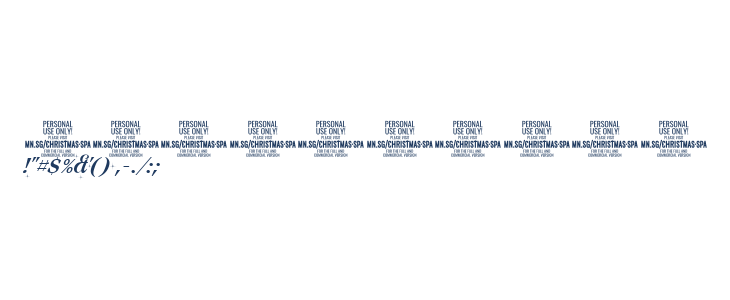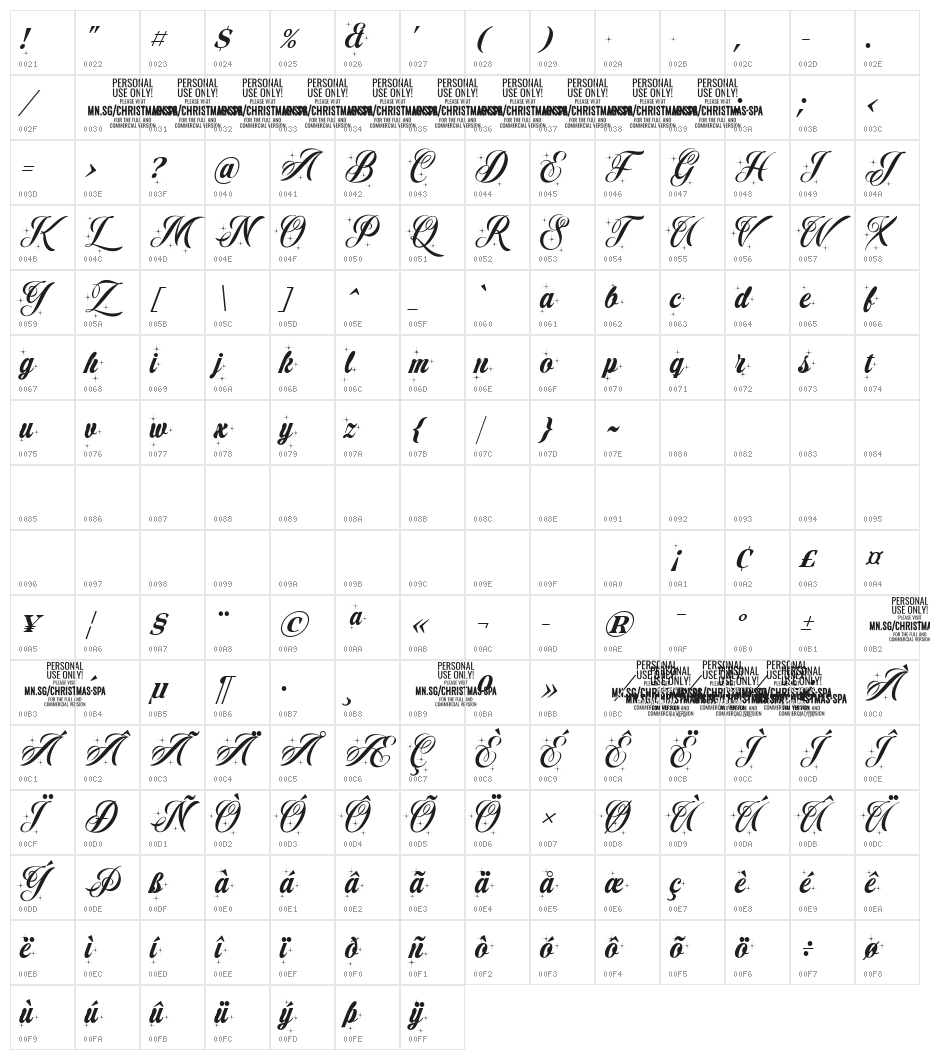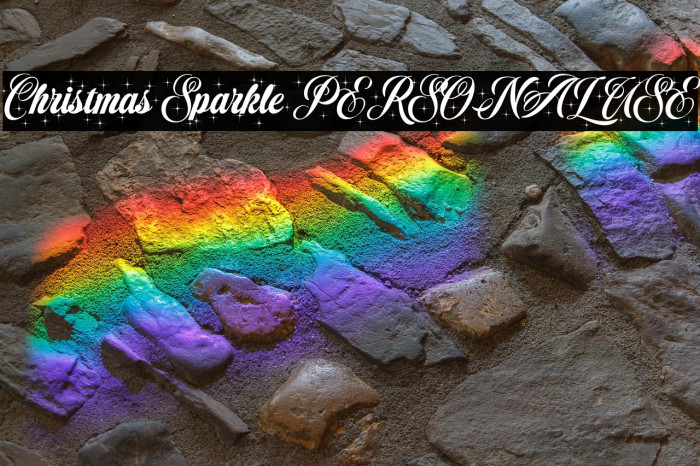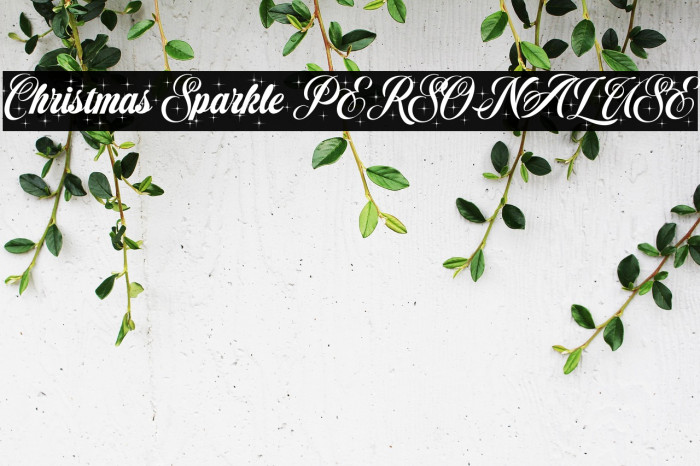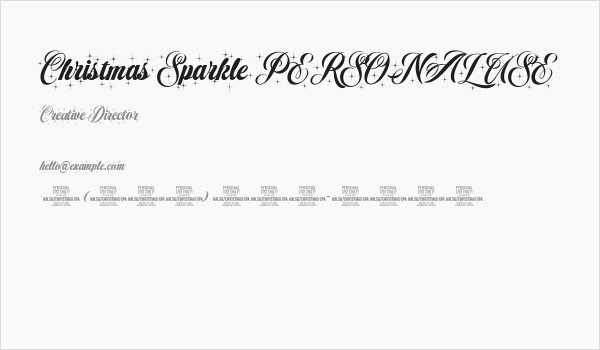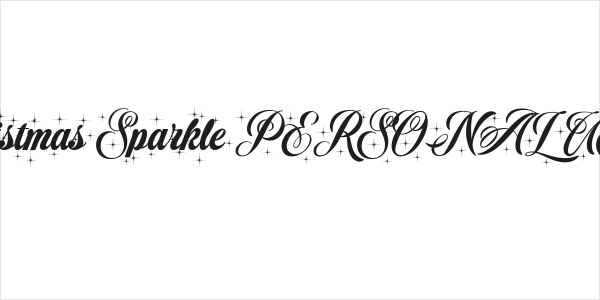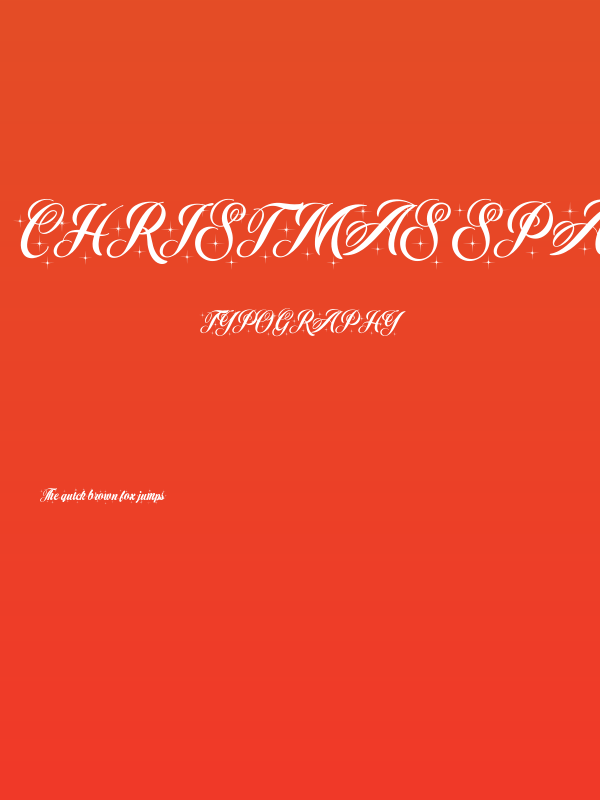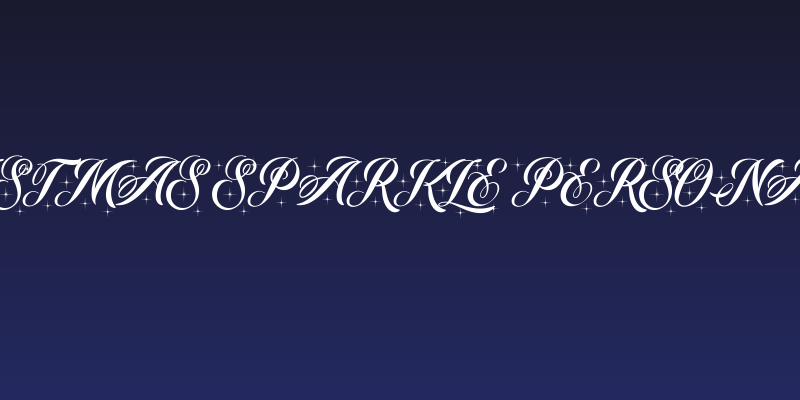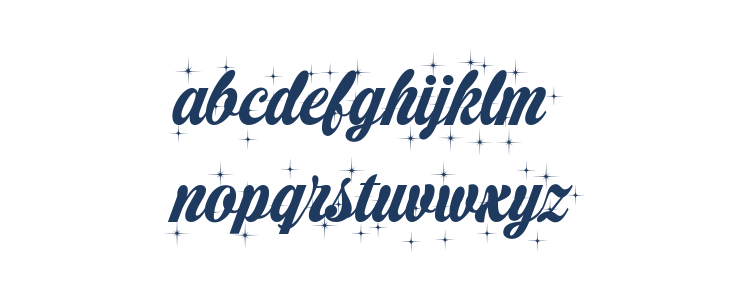
Christmas Sparkle PERSONAL USE Font
Christmas Sparkle PERSONAL USE Description
This font exudes a festive and elegant charm, perfect for holiday-themed designs. The uppercase letters are adorned with delicate sparkles, adding a whimsical touch to the script style. The lowercase letters maintain a smooth, flowing appearance, enhancing readability while retaining a decorative flair. The numerals and special characters are consistent with the overall style, ensuring a cohesive look across all text elements. This font is ideal for creating eye-catching invitations, greeting cards, and festive branding materials.
| Proposed Projects | Holiday cards, festive invitations, seasonal branding, decorative posters. |